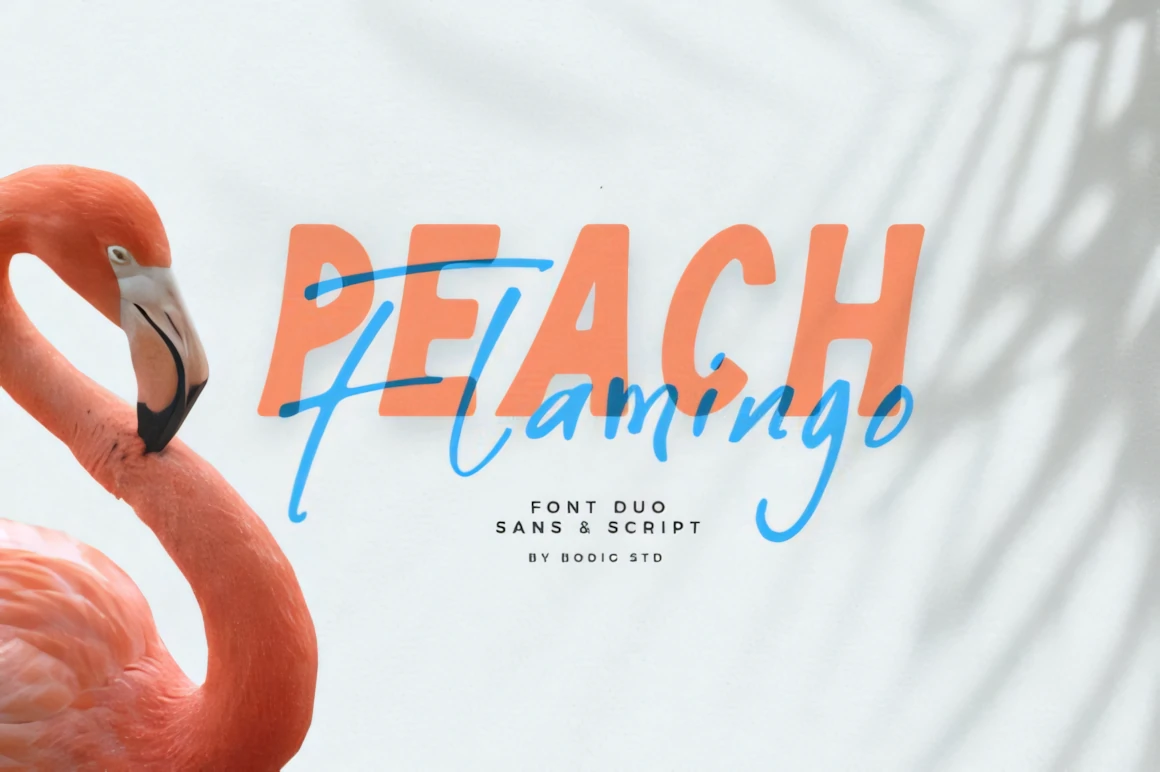
Peach Flamingo is modern two handwritten all caps and script typeface, one is a raw power struggle between these two fonts, this sans font comes with a swanky dingbat – while the other is organic wild handwritten. There are more vector bonuses to help spice up your designs!
Peach Flamingo Font Duo